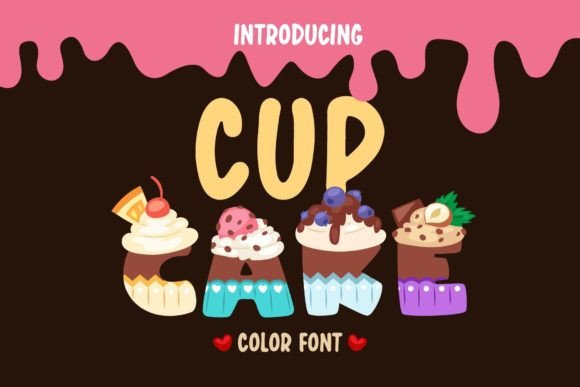
Welcome to Cupcake Font! Are you looking for a font that is cute, fun, and perfect for your next project? Then look no further! Cupcake is a beautiful and colorful font that will add a touch of whimsy and fun to any design.
Created by Fox7, Cupcake Font is the perfect choice for those who want to add a little something extra to their creative projects. Whether you are designing invitations, creating beautiful stationary art, making eye-catching social media posts, or designing cute greeting cards, Cupcake is the perfect font to help your work stand out.
One of the great things about Cupcake Font is its authentic feel. This font was designed with care and attention to detail, giving it a unique and special look that is hard to find anywhere else. With its bright and bold colors, Cupcake is sure to catch the eye of anyone who sees it.